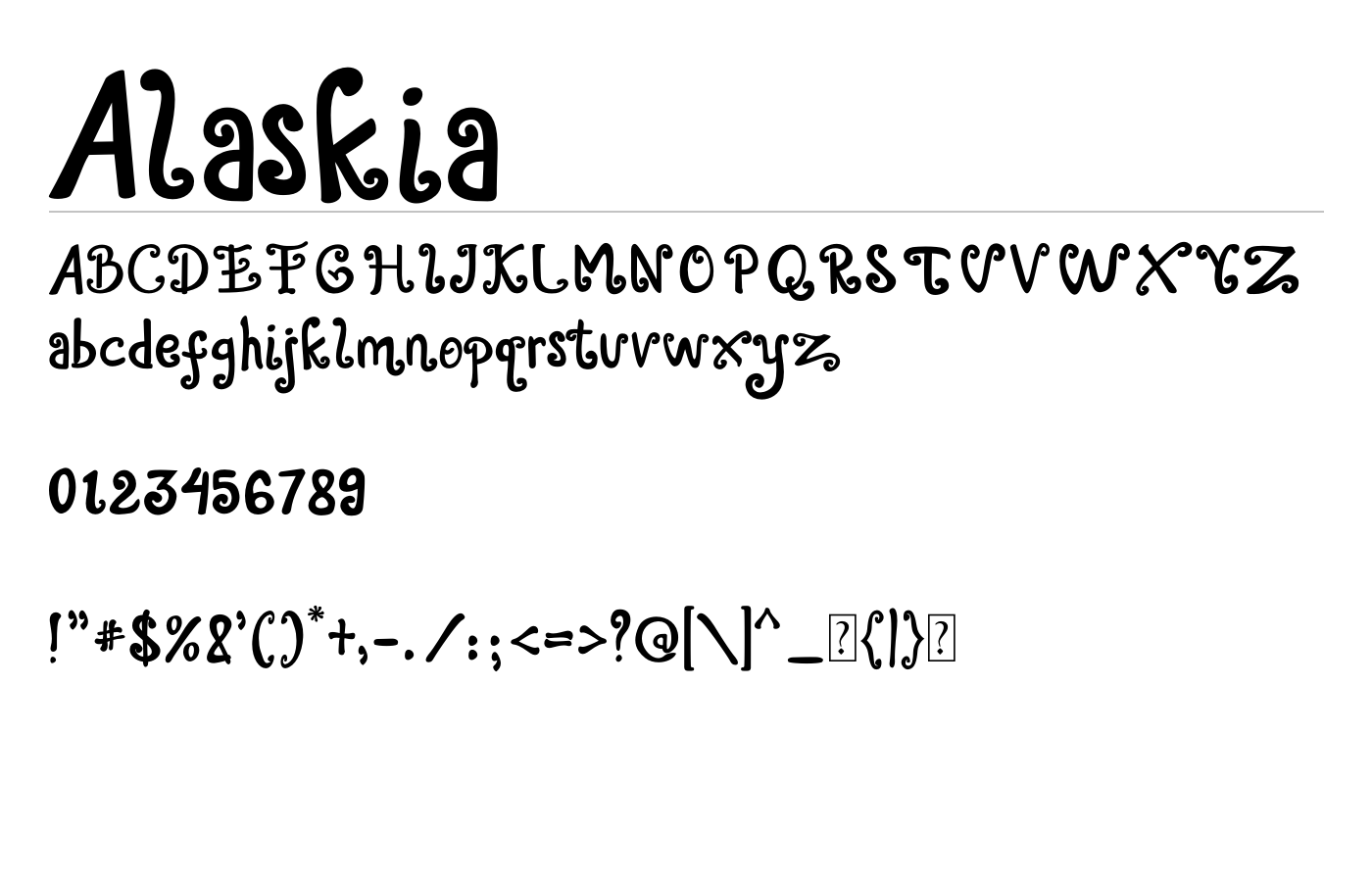
Alaskia is a playful and whimsical decorative font featuring curly, quirky letterforms with uneven strokes and a hand-drawn feel. Its moderate weight and distinct character shapes give it a friendly and informal personality, making it ideal for creative projects, children's books, invitations, and any design seeking a fun, lively touch. This font shines best in headlines or display use, where its unique style can add charm and character without sacrificing readability.
Alaskia Font
About Alaskia Font